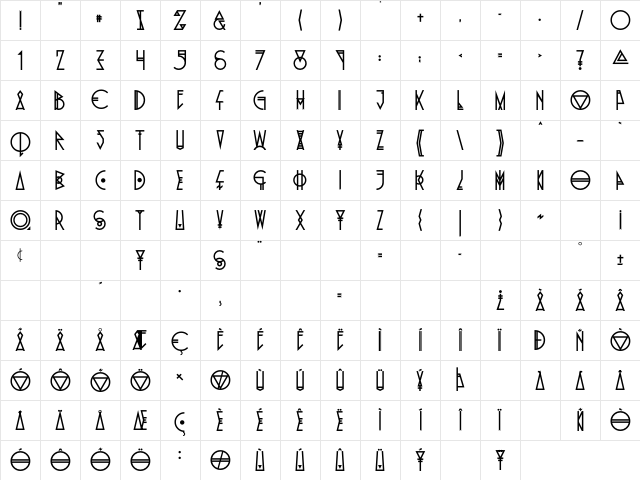
Pride Of The Young Regular
Designer: Dirt2.com
Design Context for Pride Of The Young
Pride Of The Young is a composed and adaptable typeface that performs quietly and consistently across a wide range of design contexts.